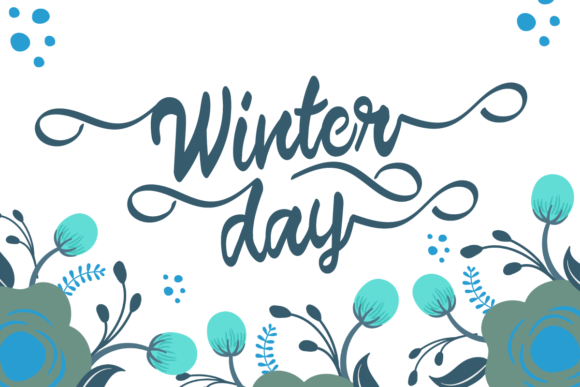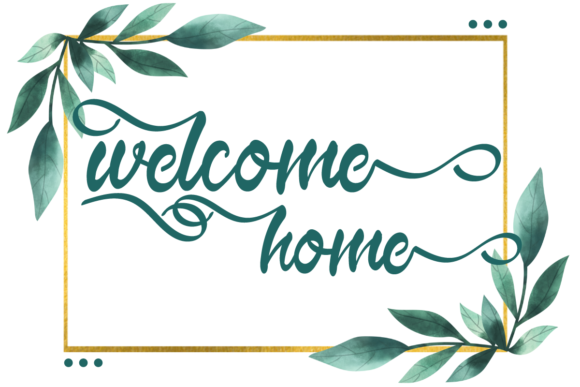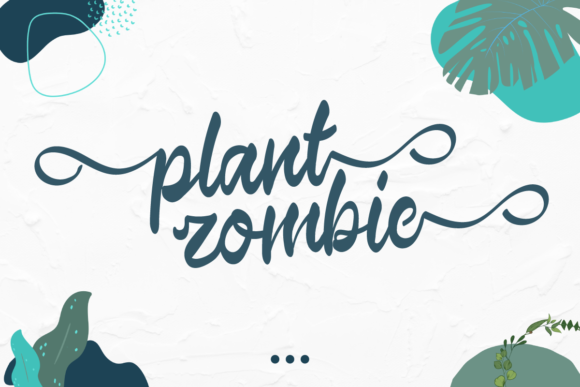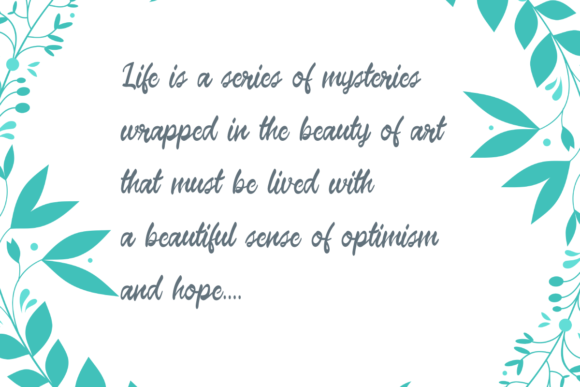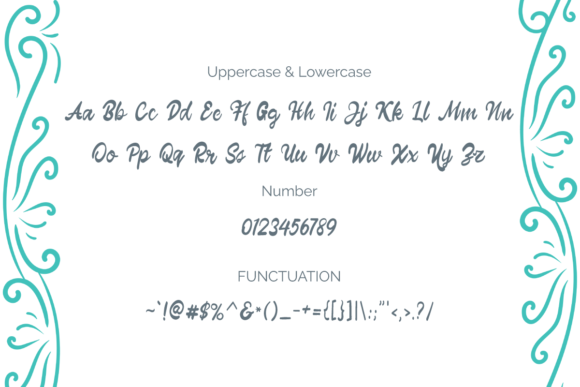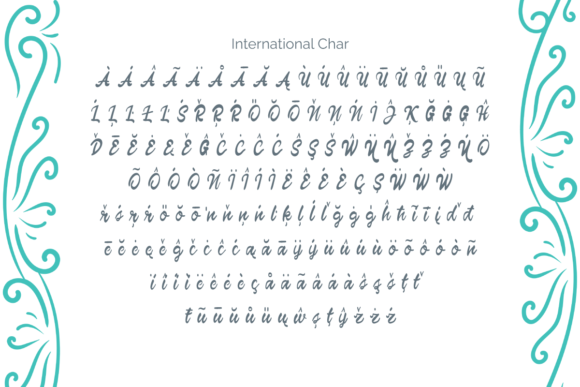
Discover the Sweet Charm of the Aliuhate Font
Have you ever stumbled upon a font that captures the essence of your creative vision in an instant? For many designers, this moment is a treasure trove of inspiration. It’s that feeling when the perfect typography suddenly appears, and your project transforms into a masterpiece. For me, it was the moment I laid eyes on the Aliuhate Font – a romantic and sweet script font that exudes elegance and whimsy.
The Aliuhate Font is a versatile design tool, perfect for a wide range of projects, from wedding invitations to t-shirts, and from logos to signage. Its PUA encoded design makes it easy to access all the glyphs and swashes, giving designers the freedom to create unique and captivating visuals. Whether you’re a seasoned pro or just starting out, the Aliuhate Font is a valuable addition to your design arsenal, offering a world of creative possibilities.
Aliuhate Font Key Features
- Unique Characteristics: The font features a unique blend of modern and traditional elements, with distinctive letterforms and a sophisticated aesthetic.
Designer Review: Aliuhate Font
Overall, I found the Aliuhate Font to be a unique and intriguing choice for designers looking to add some flair to their projects. ✨
- The bold, avant-garde style of the font is sure to grab attention and make a statement.
- The extensive character set and language support make it a viable option for a wide range of design projects.
- The font’s irregularities and inconsistencies add a touch of humanity and character to the design.
However, as with any font, there are some limitations to consider. ⚠️
- The font’s irregularities can also make it difficult to read at small sizes or in certain contexts.
- The font’s bold style can be overwhelming in certain designs, so it’s essential to use it sparingly and thoughtfully.
- The font’s character set is extensive, but it’s not perfect, and some characters may require additional work to get right.
Overall, I think the Aliuhate Font is a great choice for designers who want to add some edge and personality to their work. While it may not be suitable for every project, it’s definitely worth considering for those who want to push the boundaries of design.
Aliuhate Font is ideal for:
– Editorial designs and publications
– Presentations and reports
– Logos and typography-based designs